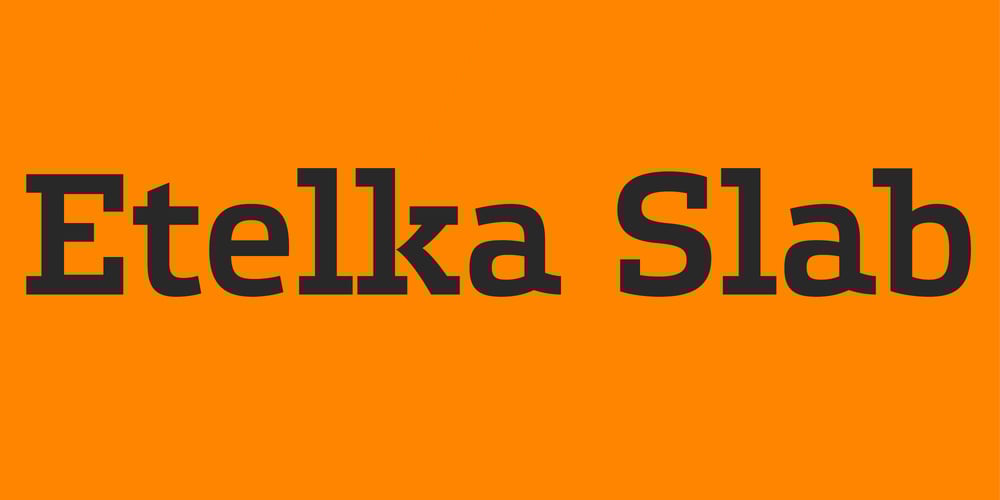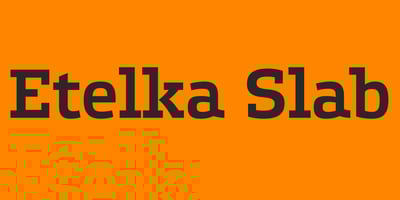
Etelka Slab Font Family was designed by František Štorm and published by Storm Type Foundry. Etelka Slab contains 14 styles and family package options. Etelka Slab is a slab-serif variation of Stormtype’s Etelka. In the process of adding serifs are applied some arched elements to emphasize its unique character. The usual range of OpenType functions is present as well as multi-lingual capability. You can use Etelka Slab wherever you intended to put Etelka, but with even sharper, louder expression. It shines in corporate identity and branding.